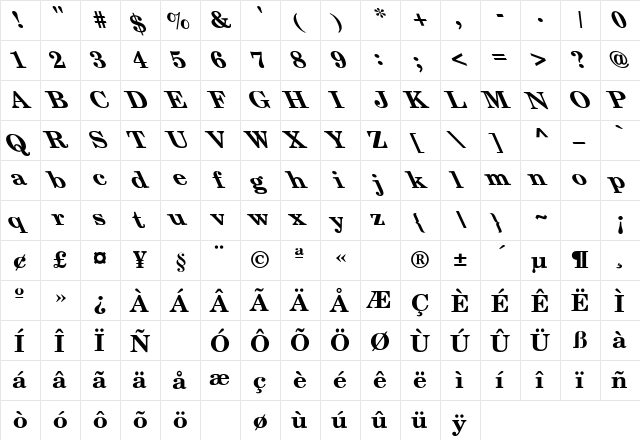
New Century Schlbk-Bold Leftie Regular
Design Context for New Century Schlbk-Bold Leftie Typeface
New Century Schlbk-Bold Leftie is a composed and adaptable typeface that performs quietly and consistently across a wide range of design contexts. The heavy weight commands attention and anchors typographic hierarchies.